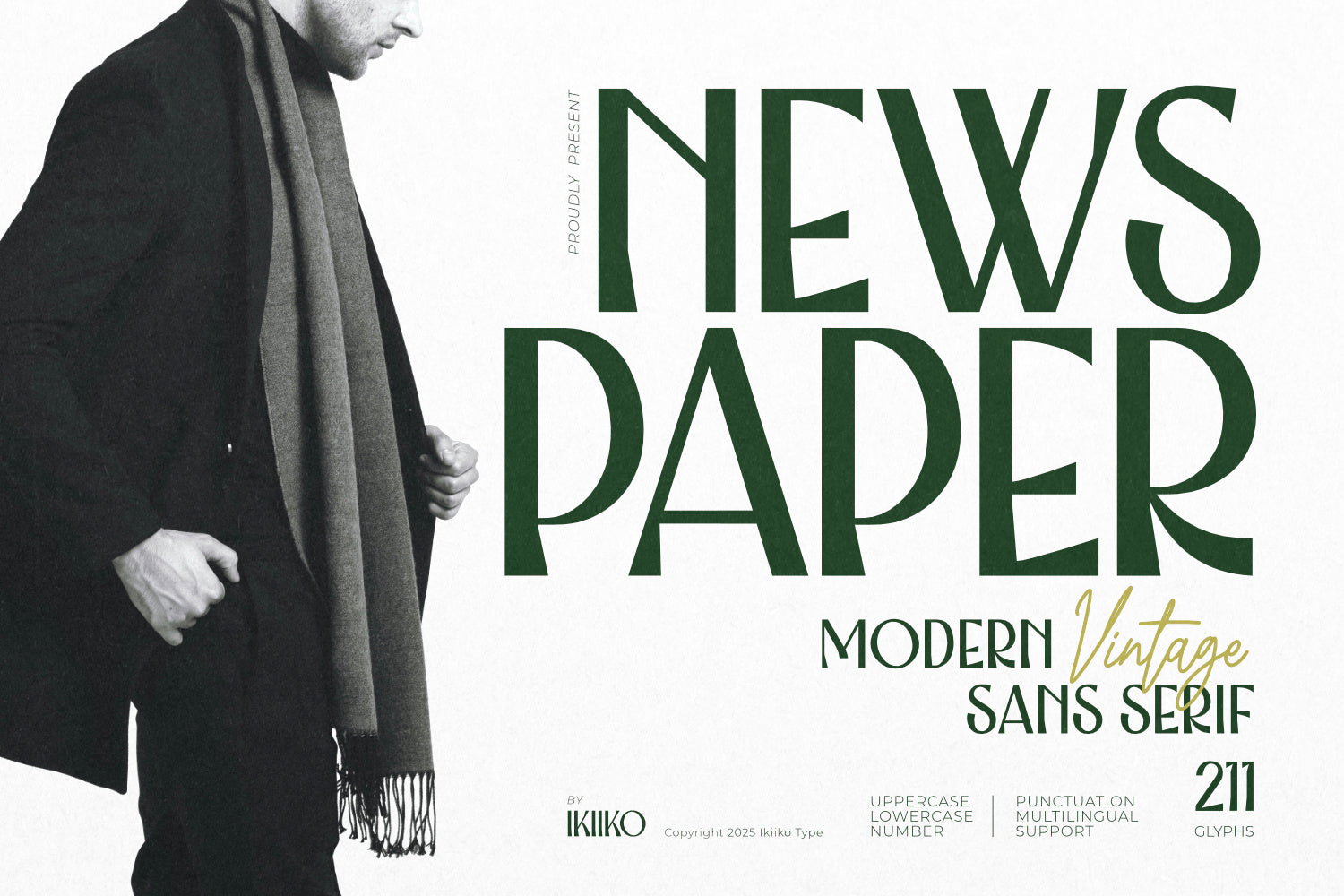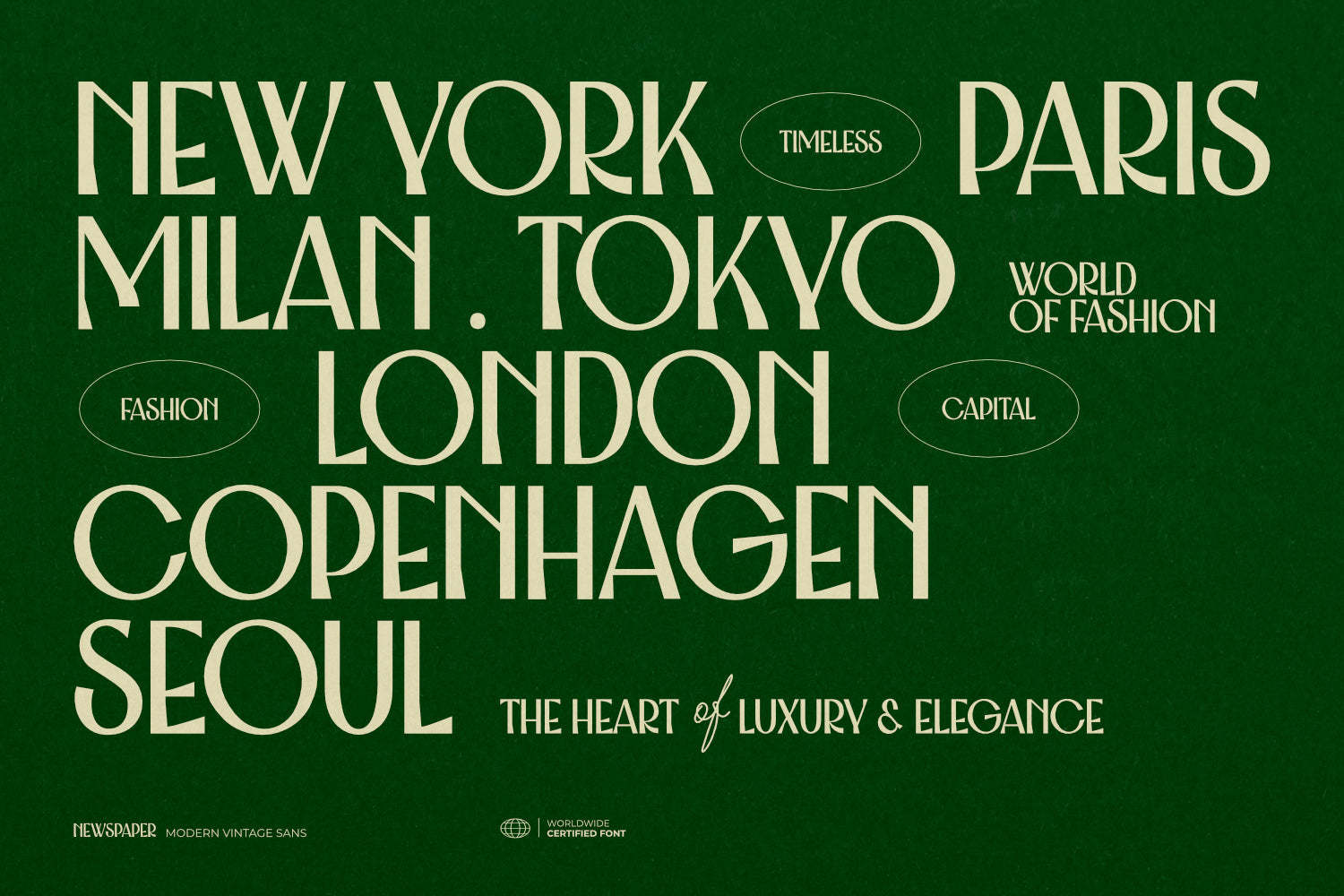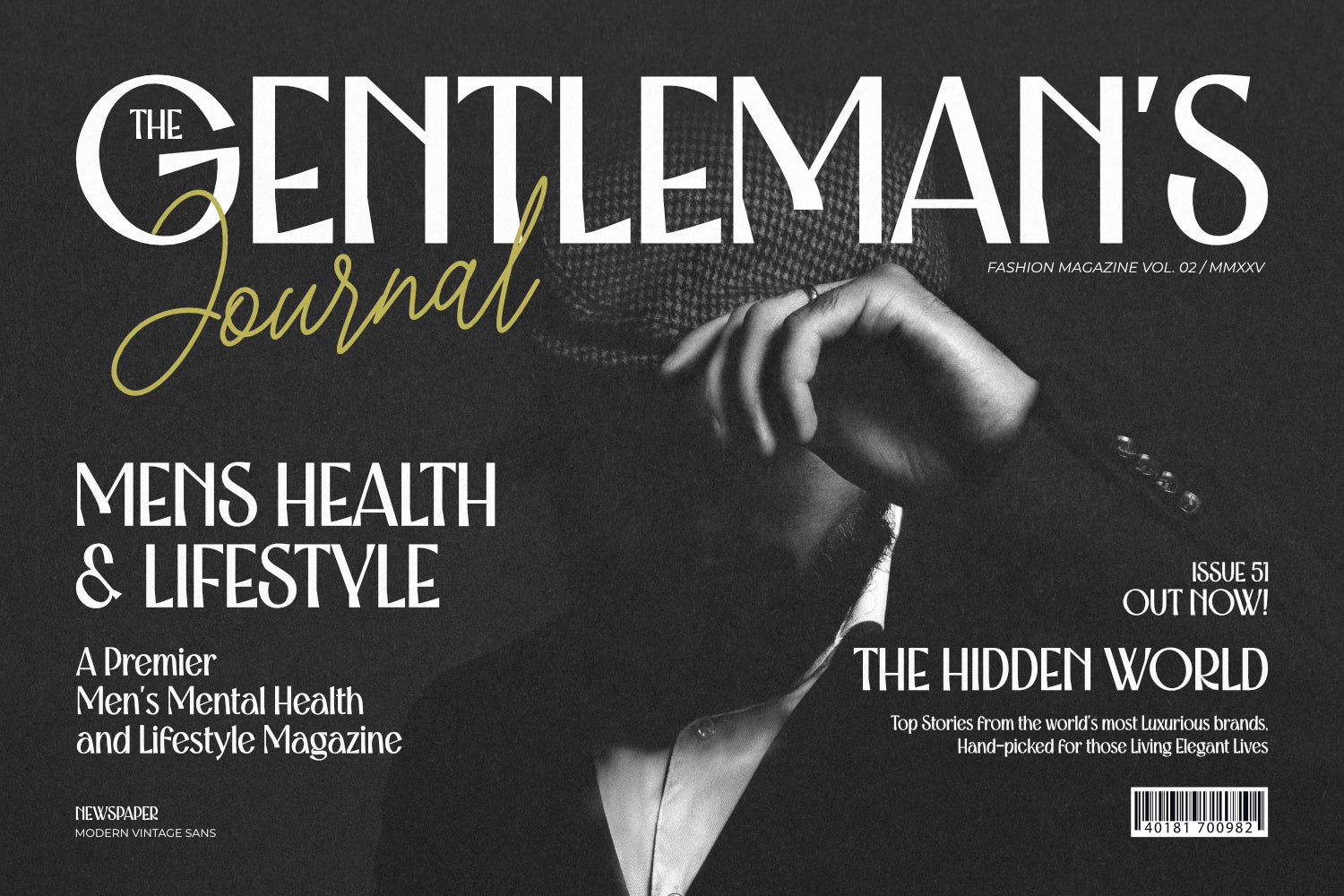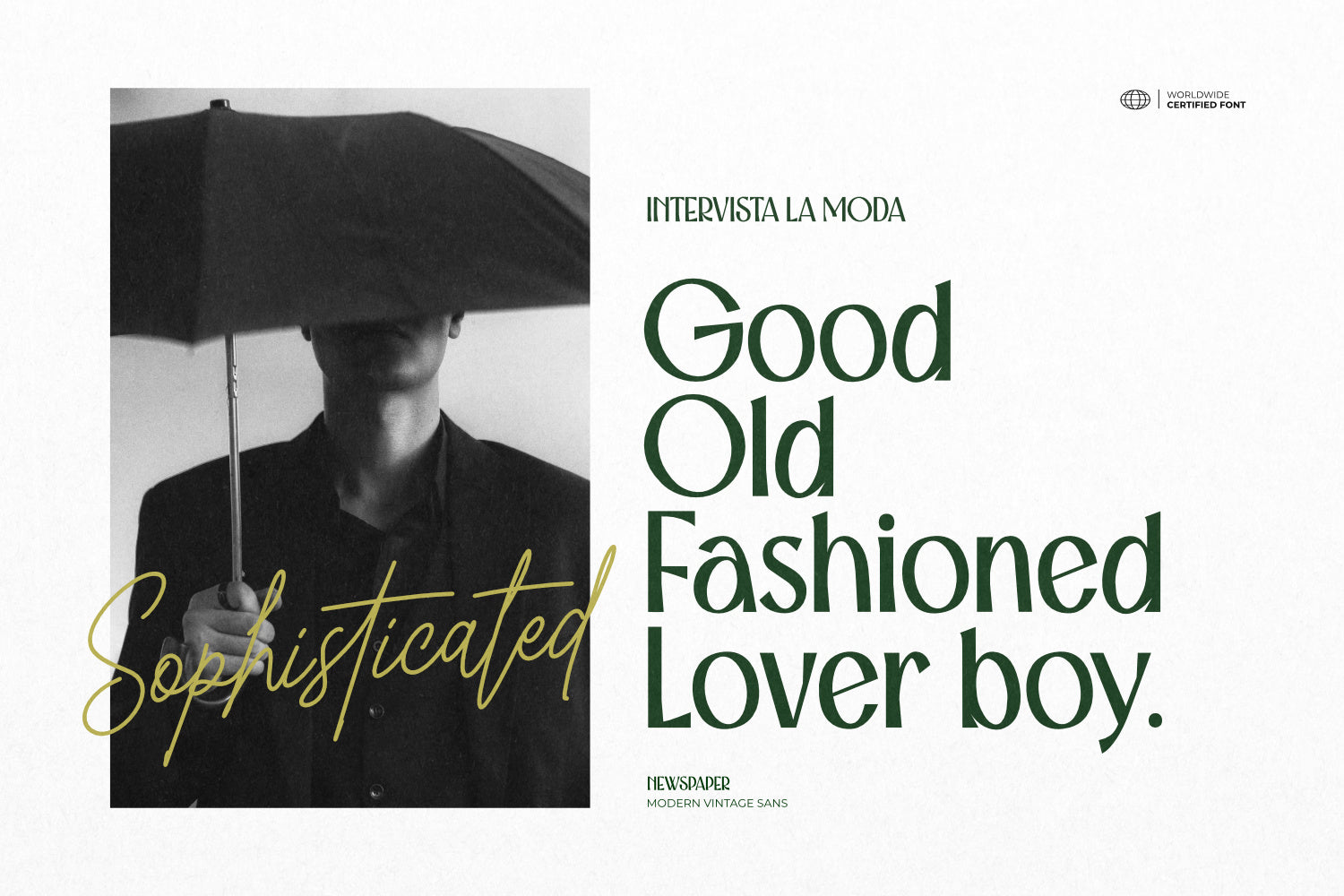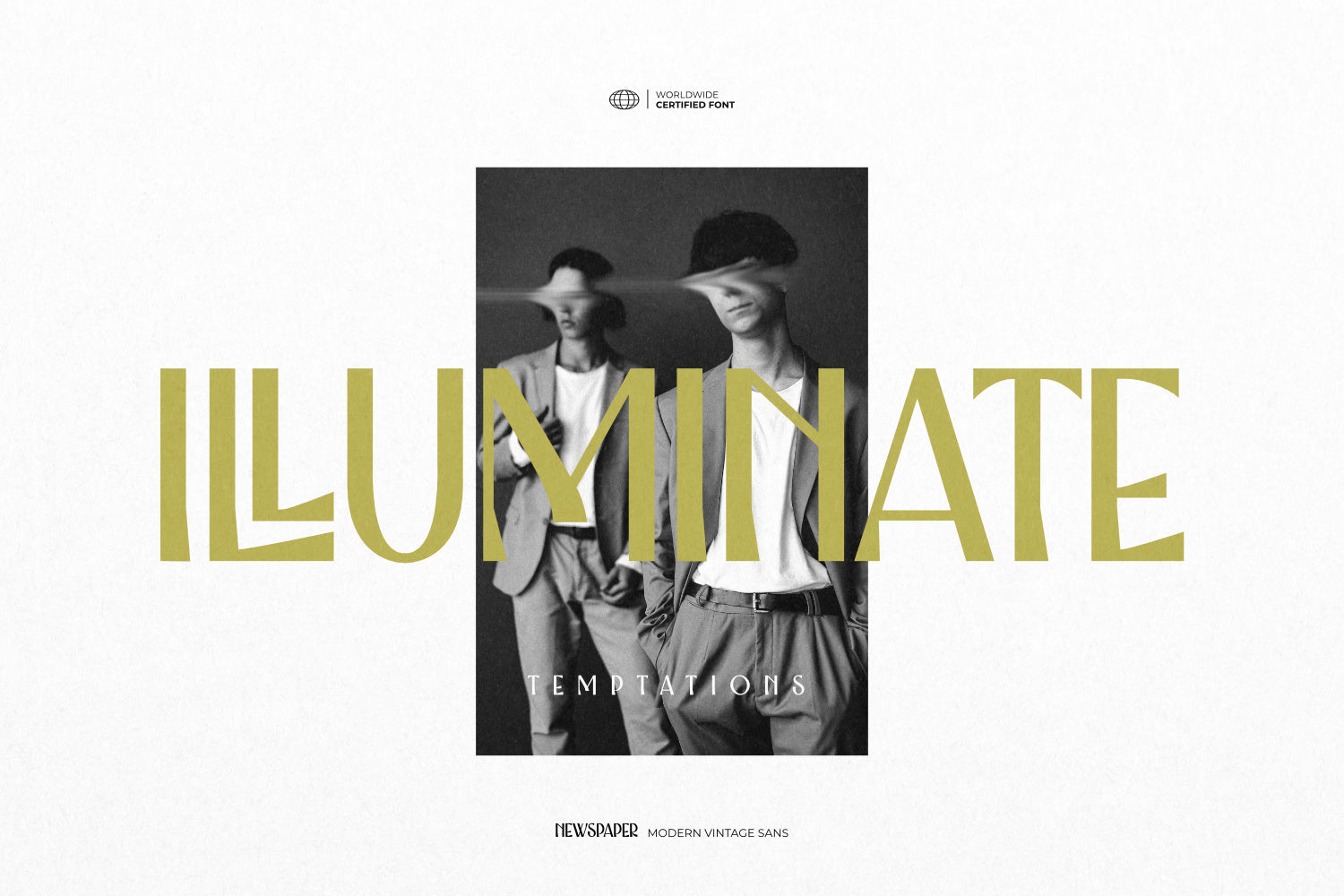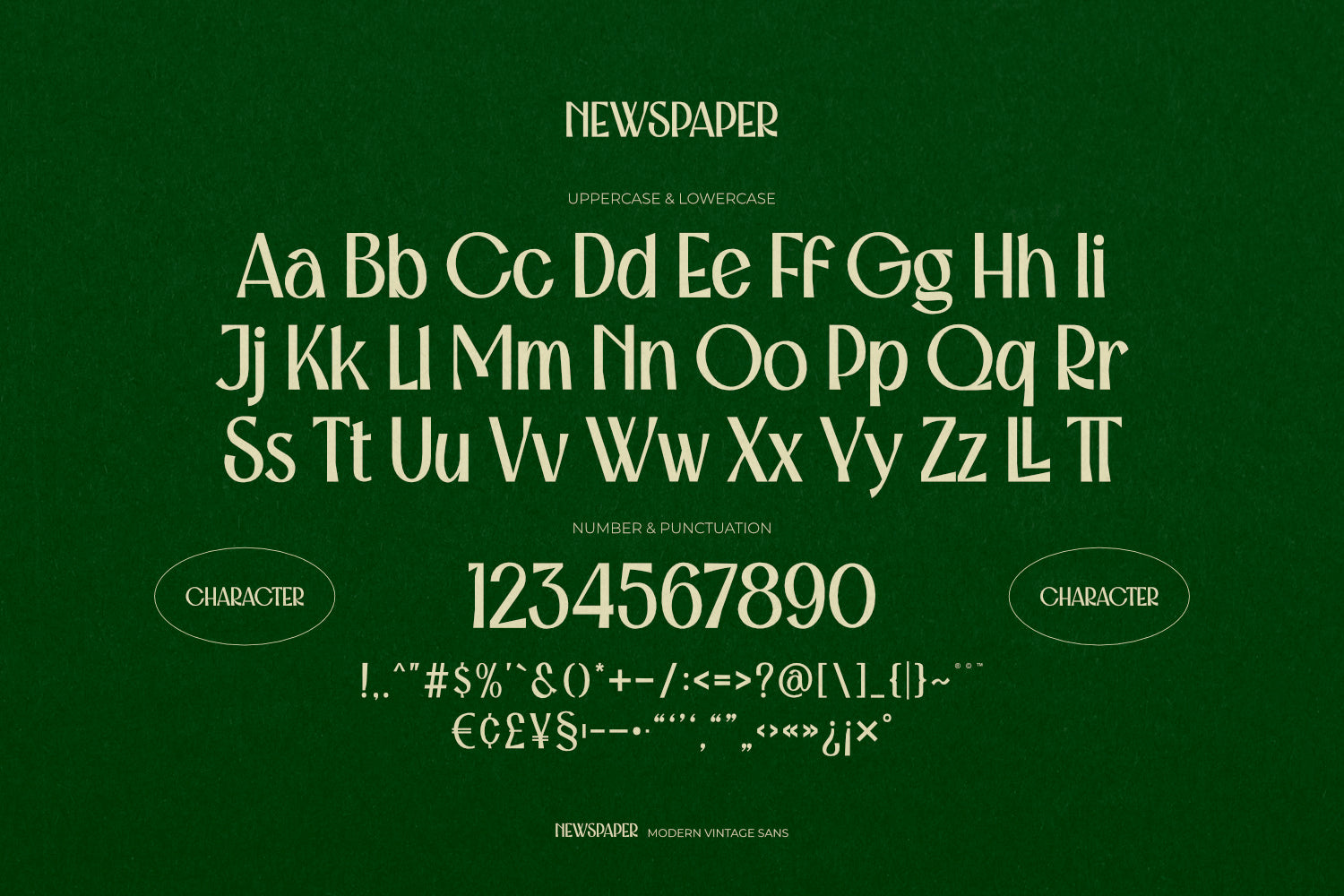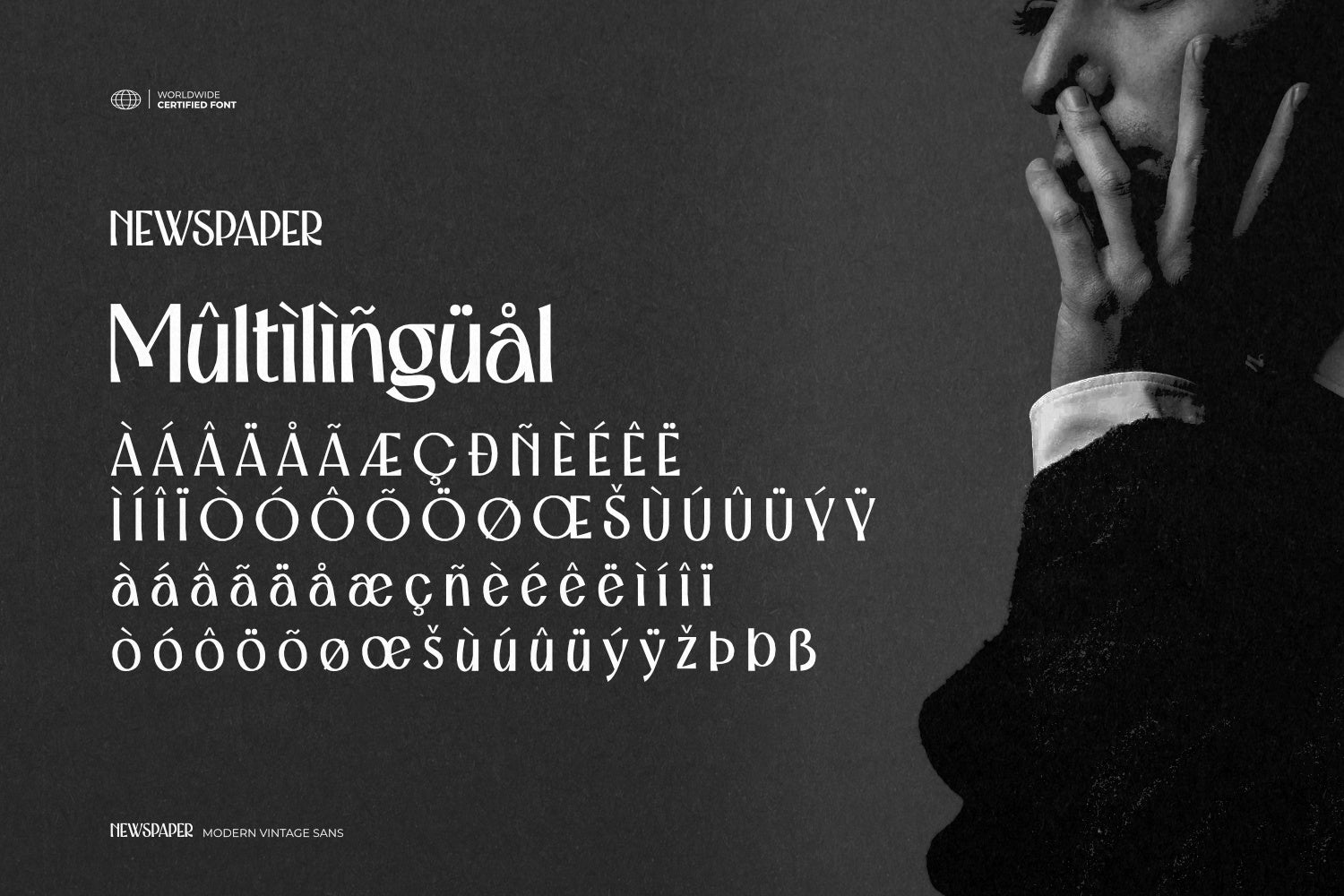
Proudly present Newspaper - Modern Vintage Sans Serif, created by ikiiko.
Newspaper, a Modern Vintage Sans Serif, brings timeless sophistication to your design toolkit. Inspired by the golden era of editorial layouts, this typeface is crafted to evoke the charm of printed newspapers and high-end magazines, while staying fresh and relevant in today’s digital scene.
This typeface is made for designing fashion brands, curating editorial spreads, or crafting bold logotypes. Newspaper delivers the perfect balance of elegant curves and clean structure. It's built for modern branding with a hint of nostalgic flair—ideal for headlines, packaging, and any identity system that needs a confident, classic touch. Sophisticated enough for a fashion house, bold enough for lifestyle media, and versatile enough for minimalist branding.